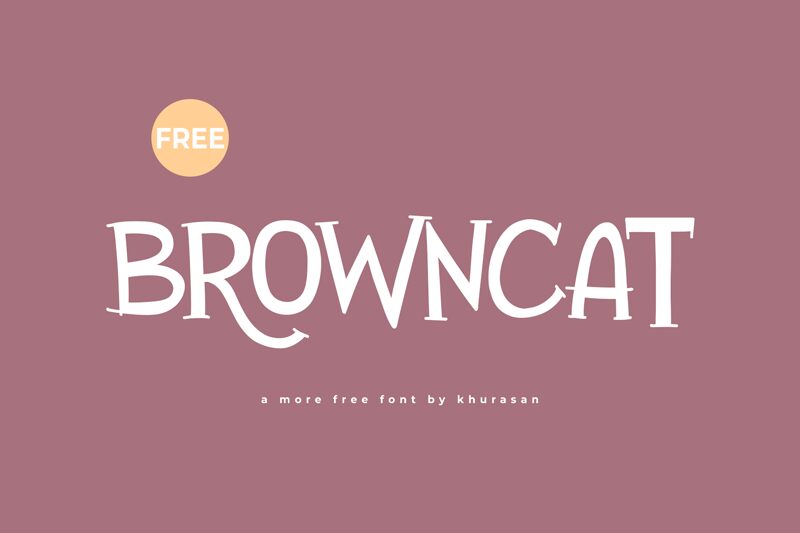
Browncat
Browncat is a captivating display font that exudes a delightful, cartoon-inspired aesthetic. Crafted by the talented designer Khurasan, this typeface boasts a playful, hand-drawn appearance, with each letter evoking a sense of playfulness and charm. The organic curves and quirky details give the font a distinct personality, making it an engaging choice for a wide range of design projects.
This font's versatility shines through its ability to seamlessly integrate into a variety of design contexts. Browncat's playful nature lends itself perfectly to branding, packaging, and promotional materials, adding a touch of whimsy and fun. Furthermore, its captivating style makes it an excellent choice for children's publications, educational resources, and creative content, where its endearing qualities can truly shine.